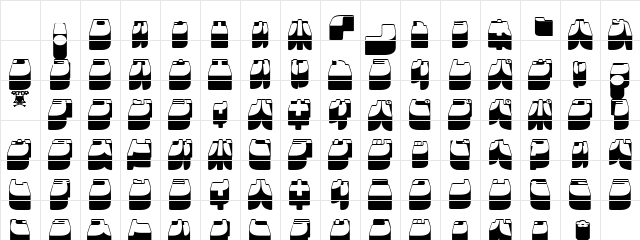
Frigate Katakana - 3D Regular
Designer: Melinda Windsor
Design Context for Frigate Katakana - 3D
Frigate Katakana - 3D is a composed and adaptable typeface that performs quietly and consistently across a wide range of design contexts.